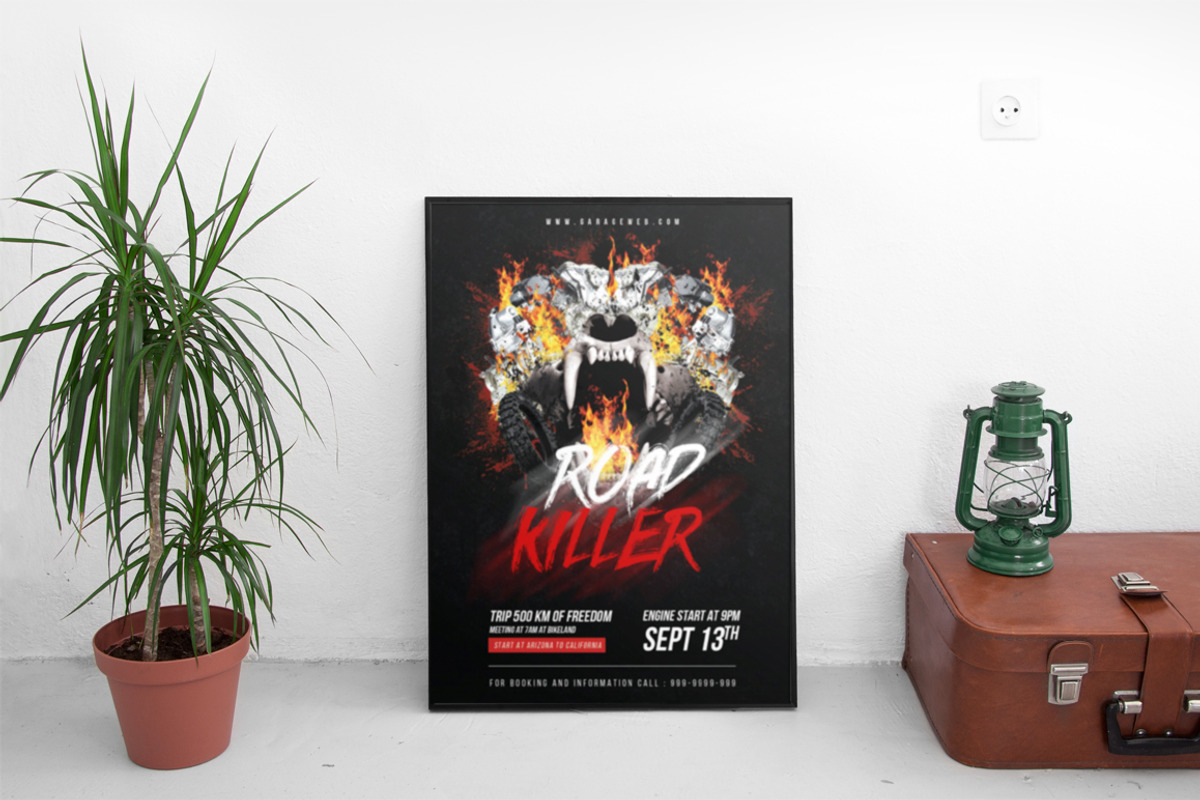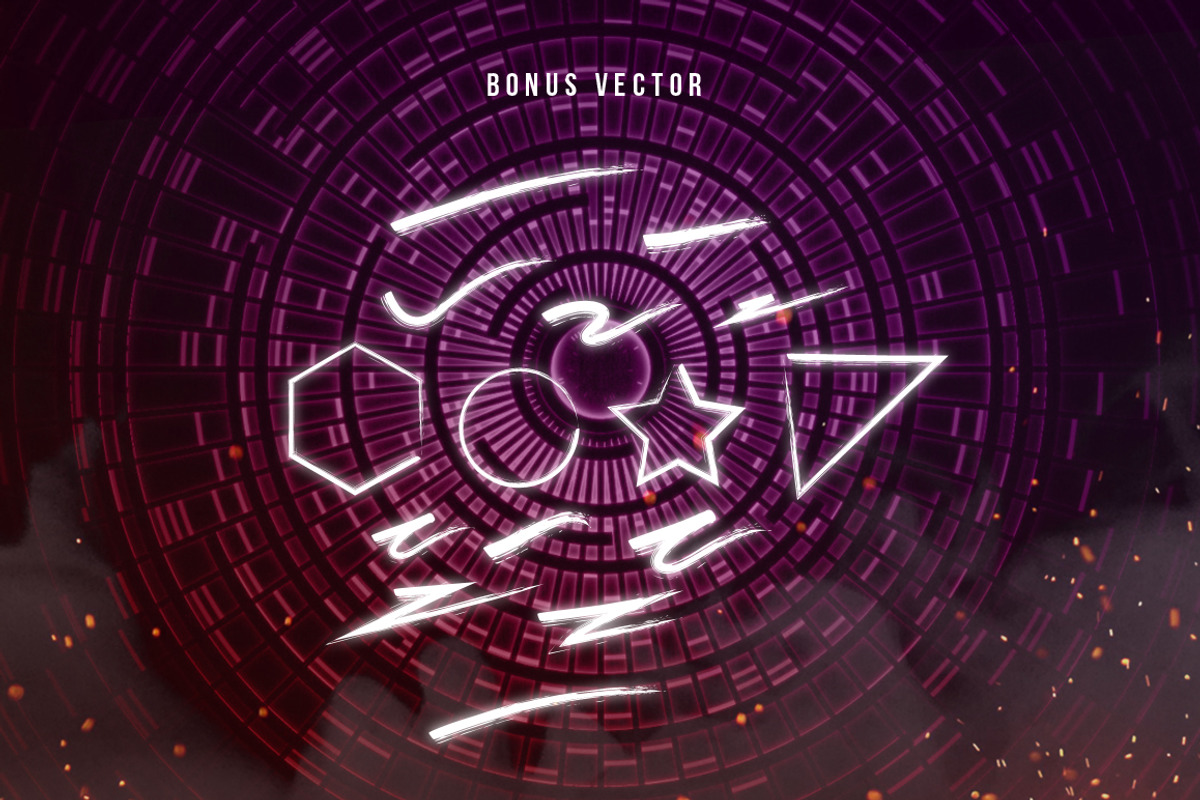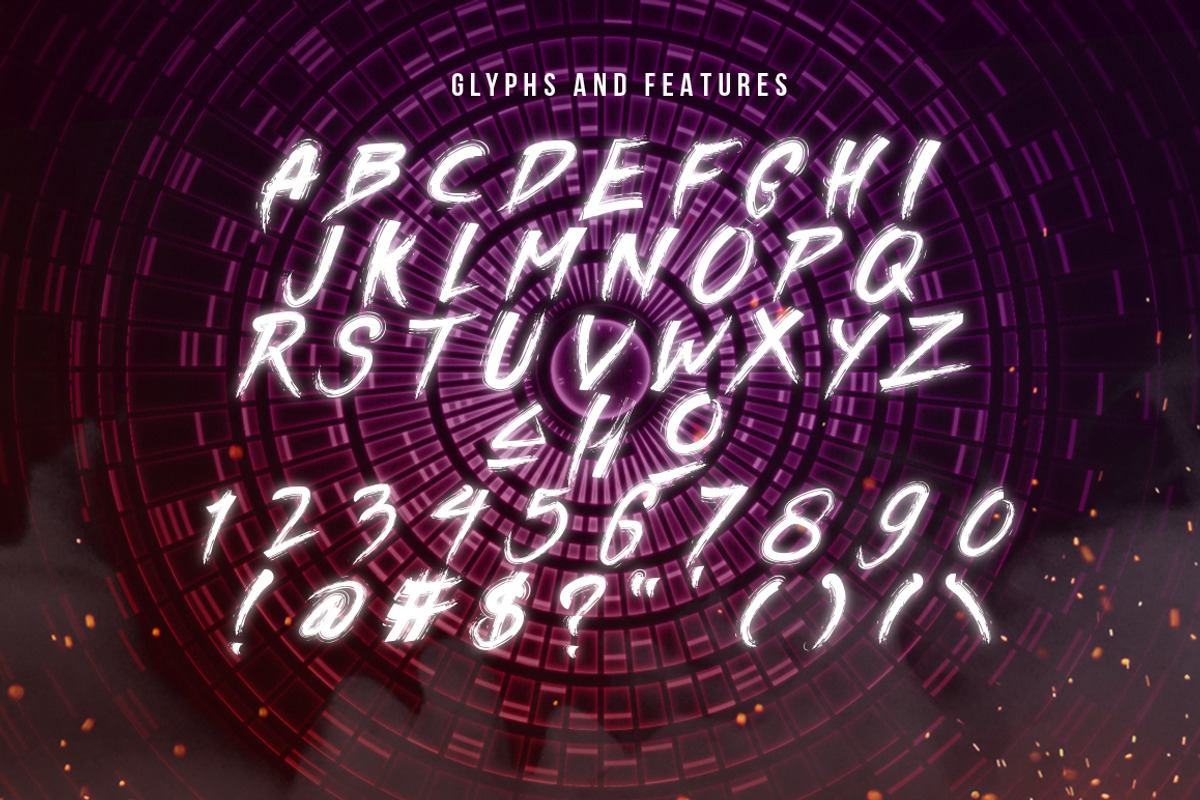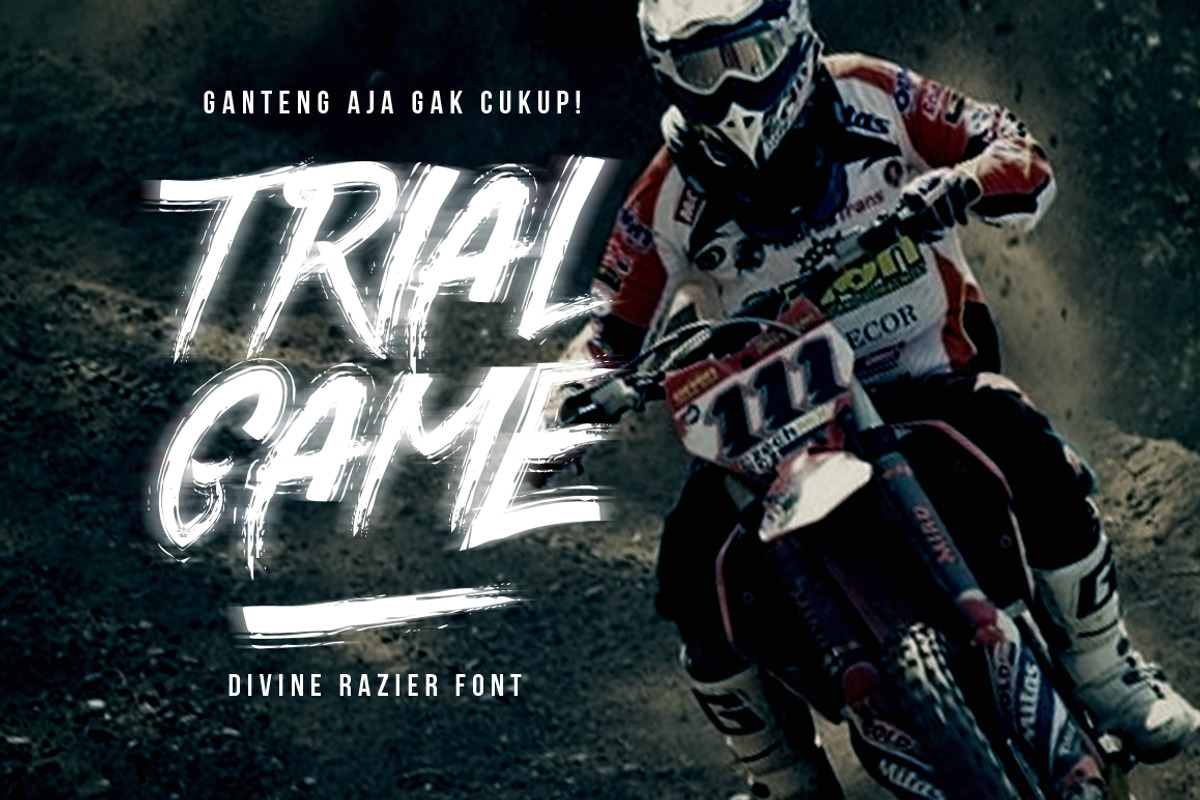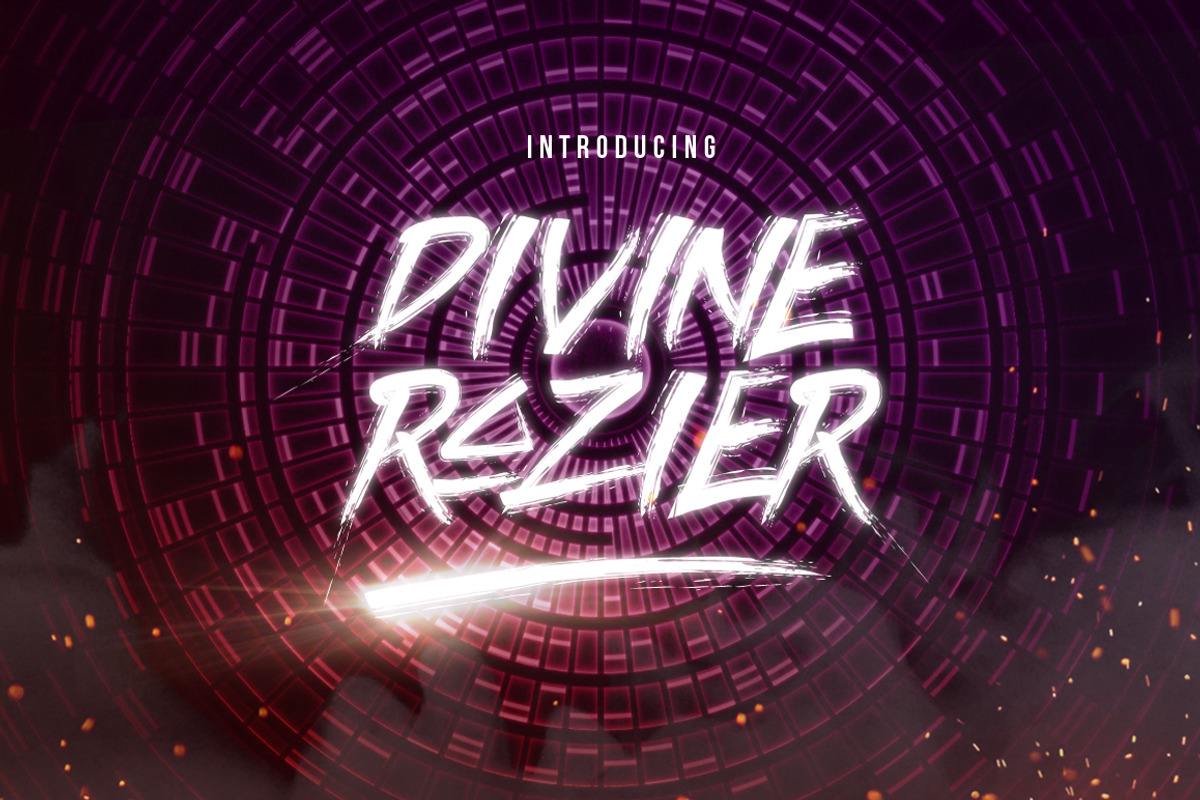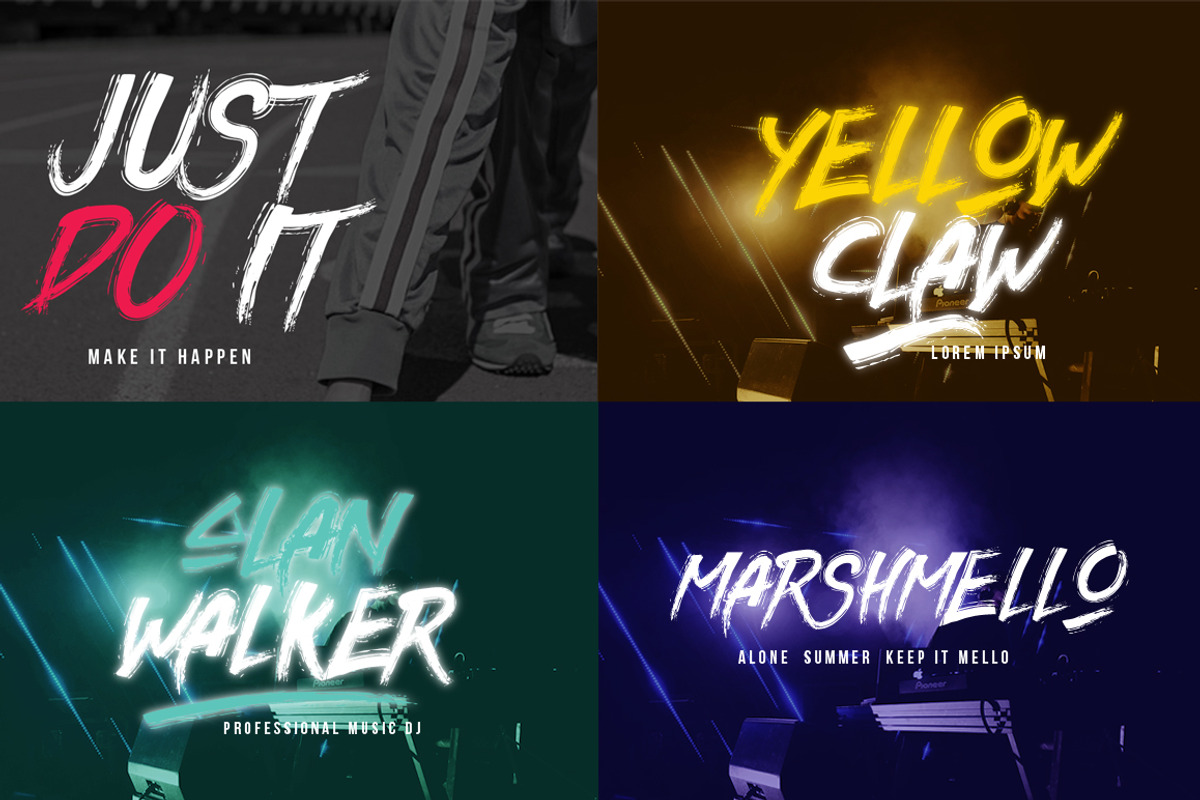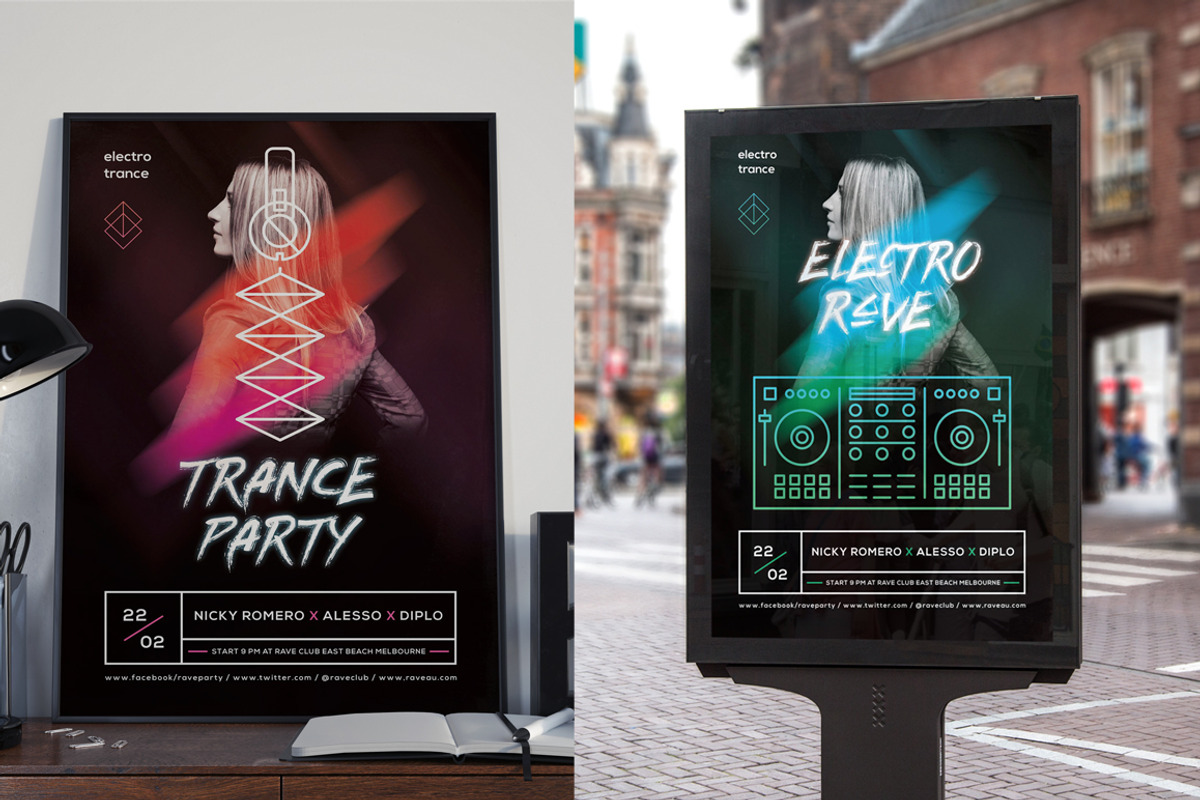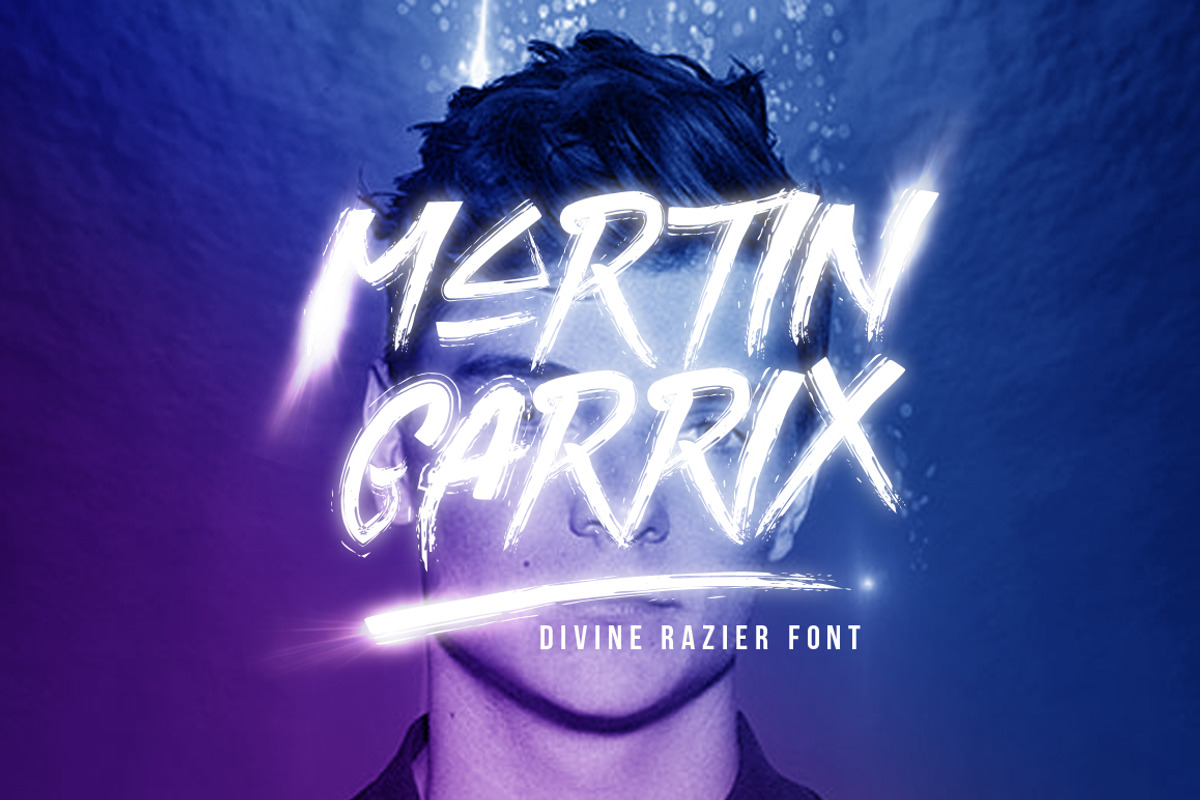
Divine Razier Font+Extra (50% OFF!) by Haws.std is a font selected for branding, posters, packaging, typography.
Why Divine Razier Font+Extra (50% OFF!) is worth a look
Divine Razier Font+Extra (50% OFF!) by Haws.std fits naturally into Branding, posters, packaging, typography.